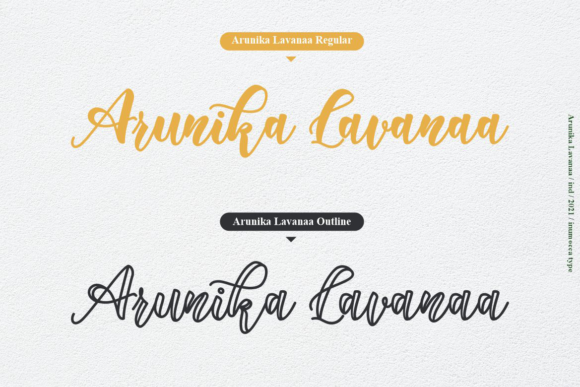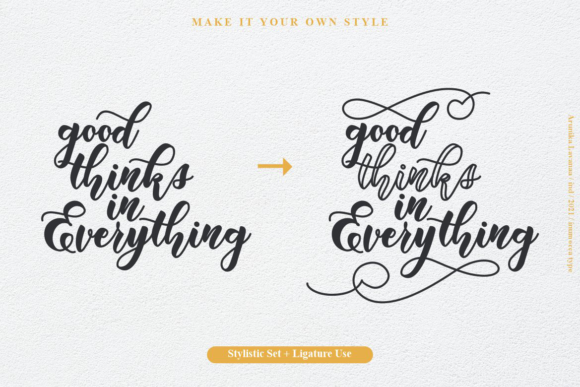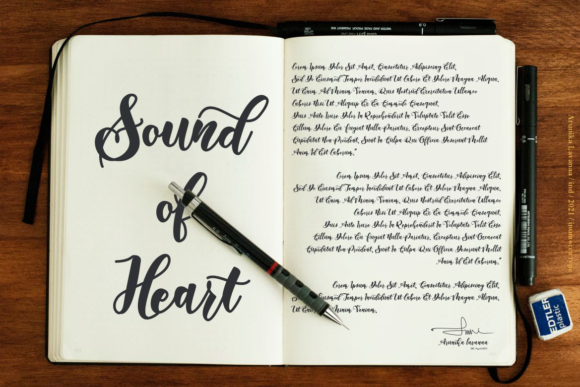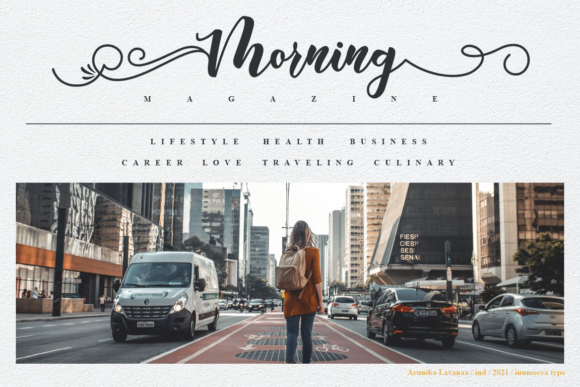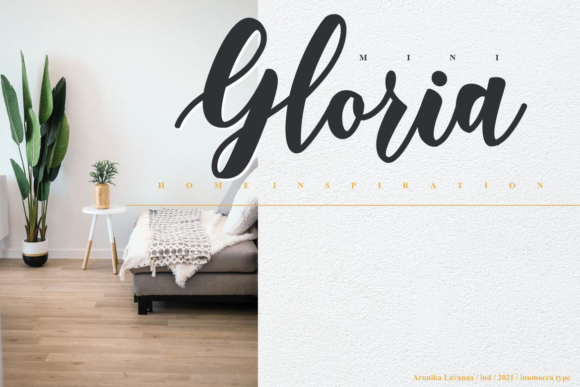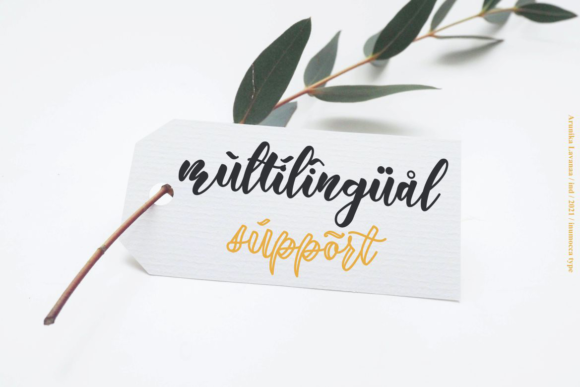
A Perfect Script for Love Stories: Introducing the Arunika Lavanaa Font
As you sit down to craft a wedding invitation, a birthday card, or any other special message that requires a touch of romance, do you ever wish you had the perfect script to convey your emotions? The search for the perfect font can be overwhelming, but today, we’re excited to introduce you to the Arunika Lavanaa Font – a beautiful, handwritten script that will make your designs truly unforgettable.
Arunika Lavanaa Font is more than just a pretty face; it’s a versatile tool that will elevate your designs with its dainty, joyful charm. With its PUA encoding, you’ll have access to all the glyphs and swashes you need to create stunning, personalized designs. As a designer, you’ll appreciate the value of having a font that can add a romantic touch to your projects, making it a must-have in your font collection.
Arunika Lavanaa Font Key Features
- Font Style: The Arunika Lavanaa Font is a beautiful, elegant, and modern script font designed for various applications.
- Unique Characteristics: The Arunika Lavanaa Font features a unique blend of traditional and modern elements, with intricate details and flowing lines, making it perfect for creating elegant and sophisticated designs.
Arunika Lavanaa Font Review
Overall, I think the Arunika Lavanaa Font has a lot to offer, especially for those looking for a unique and exotic font. ✨ One of the standout features is its intricate design, with beautiful lines and shapes that give it a luxurious feel. It’s perfect for creating eye-catching headings and titles that will grab the attention of your audience.
Here are some of the things that I think work well in this font:
- ✨ Unique and exotic design that sets it apart from more common fonts
- ✨ Beautiful lines and shapes that give it a luxurious feel
- ✨ Perfect for creating eye-catching headings and titles
- ⚠️ The font may not be suitable for body text, as it can be difficult to read in smaller sizes
- ⚠️ Some letters may not be fully supported in certain operating systems or browsers
Overall, I think the Arunika Lavanaa Font is a great choice for those who want to add a touch of luxury and sophistication to their designs. With its unique design and beautiful lines, it’s perfect for creating eye-catching headings and titles. However, it may not be the best choice for body text or for use in systems or browsers that don’t fully support it.
Use Arunika Lavanaa Font for creating beautiful and elegant designs, especially for wedding invitations, greeting cards, and other special occasion materials.
Take advantage of the font’s intricate details and ornaments to add a touch of sophistication to your designs.